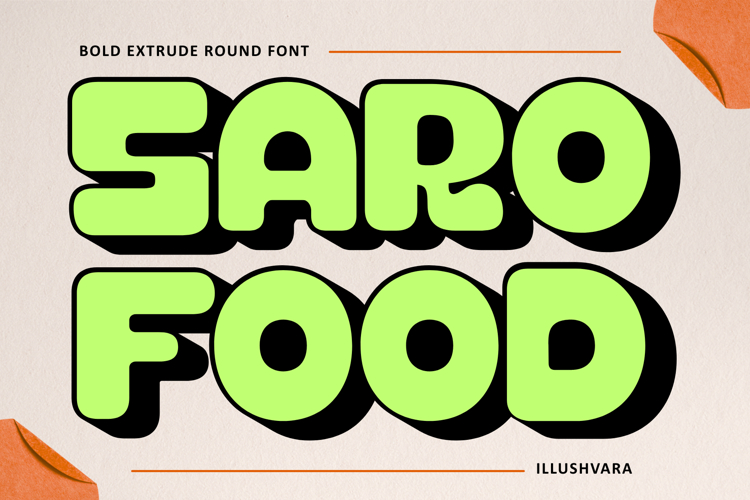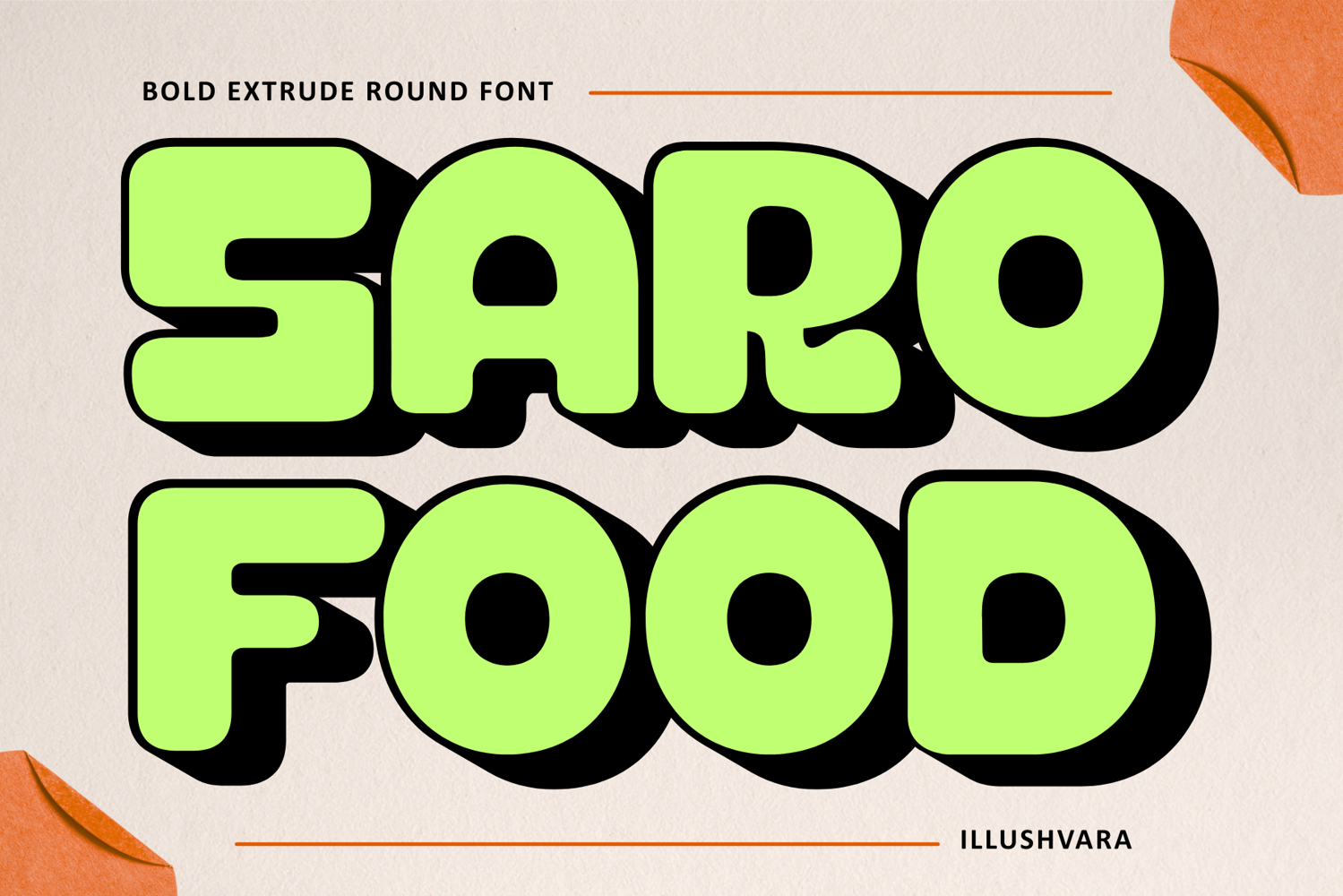
Say hello to Saro Food
Saro Food is a bold all-caps display font crafted to make your designs pop with flavor. Featuring strong rounded shapes and dynamic extrude style, this typeface delivers a fun, dimensional look that instantly grabs attention. Perfect for posters, packaging, coffeeshop branding, burger and pizza labels, cafe menus, and restaurant promotions, Saro Food brings a tasty, energetic vibe to every project. Make your brand louder, brighter, and more delicious with Saro Food.